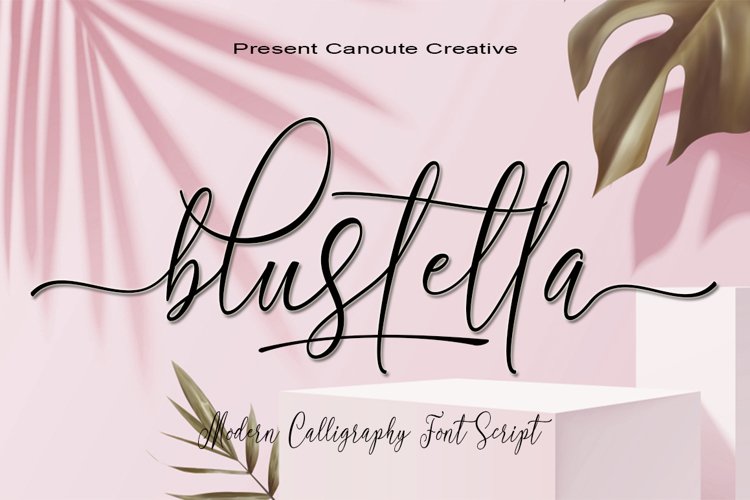
blustella
blustella a fonts of stylish calligraphy that have a varied base line, fine lines, classic and elegant touches. Can be used for various purposes. Such as title, signature, logo, wedding invitation, t-shirt, letterhead, nameplate, label, news, poster, badge etc.
blustella displays stylish calligraphy alternate characters. Includes initial letters and terminals, alternatives, ligatures and multiple language support.
The Features of this fonts is:
* Standart ligatures
* Stylistic Alternates
* Swash